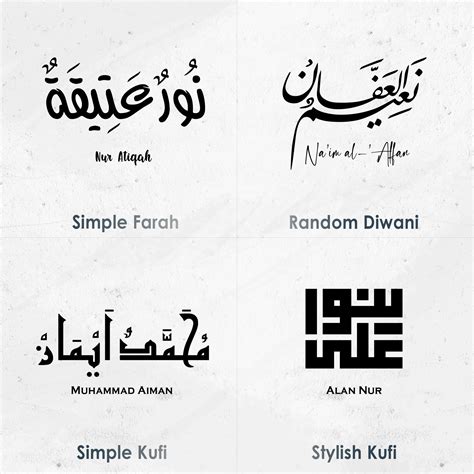
Arabic Fonts In 2021 – Exploring The Best Options
What are Arabic Fonts?
Arabic fonts are typefaces specifically designed to support the Arabic writing system. They are used by design professionals and hobbyists alike to capture the beauty of Arabic calligraphy and typography. Arabic typography is an important part of Arabic culture, and Arabic fonts are an essential part of the Arabic writing system.
Arabic fonts are available in a wide variety of styles, from traditional to modern. They come in a variety of weights from light to bold, and can be used for a wide range of projects, from logo designs to posters and more. Arabic fonts are also available in a variety of sizes, from small to large.
Why Use Arabic Fonts?
Using Arabic fonts is a great way to capture the beauty of Arabic typography. Arabic typography is an important part of Arabic culture, and Arabic fonts are an essential part of the Arabic writing system. Arabic fonts are available in a wide variety of styles, from traditional to modern. They come in a variety of weights from light to bold, and can be used for a wide range of projects, from logo designs to posters and more.
Using Arabic fonts can help bring a unique touch to your projects. Whether you’re designing a logo, creating a poster, or making a website, using Arabic fonts can help make your project stand out. Arabic fonts are also a great way to add a touch of culture to any project.
Top 5 Arabic Fonts in 2021
With so many Arabic fonts available, it can be hard to choose the right one for your project. Here are our top 5 picks for 2021:
1. Rahel
Rahel is a modern Arabic font that features a unique blend of traditional and modern Arabic script. It features a modern style and is perfect for creating logos, posters, and other design projects. Rahel also supports a variety of languages, including Arabic, Farsi, Urdu, Pashto, and Kurdish.
2. Amiri
Amiri is a classic Arabic font that has been around for over a century. It is a classic serif font with an elegant and traditional style. Amiri is perfect for adding a touch of sophistication and class to any design project. It supports a variety of languages, including Arabic, Farsi, Urdu, Pashto, and Kurdish.
3. Geeza Pro
Geeza Pro is a modern Arabic font that has a clean, contemporary look. It is perfect for creating logos, posters, and other design projects. Geeza Pro supports a variety of languages, including Arabic, Farsi, Urdu, Pashto, and Kurdish.
4. Alhambra
Alhambra is a classic Arabic font with a traditional style. It is perfect for adding a touch of culture to any design project. Alhambra supports a variety of languages, including Arabic, Farsi, Urdu, Pashto, and Kurdish.
5. Sahel
Sahel is a modern Arabic font that has a modern, yet traditional style. It is perfect for creating logos, posters, and other design projects. Sahel also supports a variety of languages, including Arabic, Farsi, Urdu, Pashto, and Kurdish.
Arabic fonts are an essential part of the Arabic writing system. They are available in a wide variety of styles, from traditional to modern, and can be used for a wide range of projects, from logo designs to posters and more. Arabic fonts can help bring a unique touch to your projects, and can help add a touch of culture to any design project. We hope this list of the top 5 Arabic fonts in 2021 has helped you find the perfect font for your project.